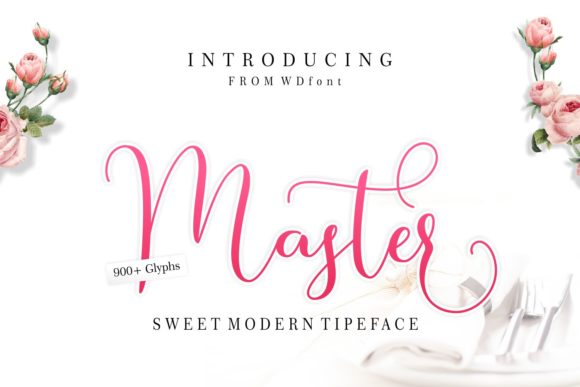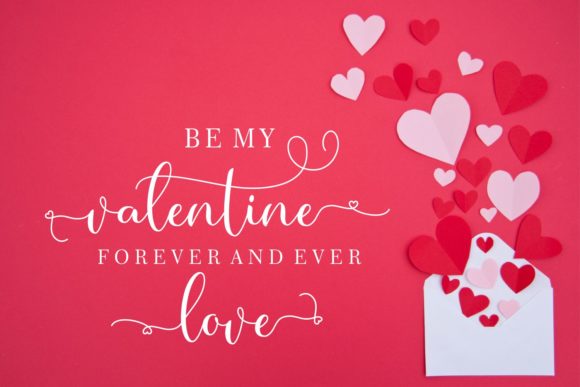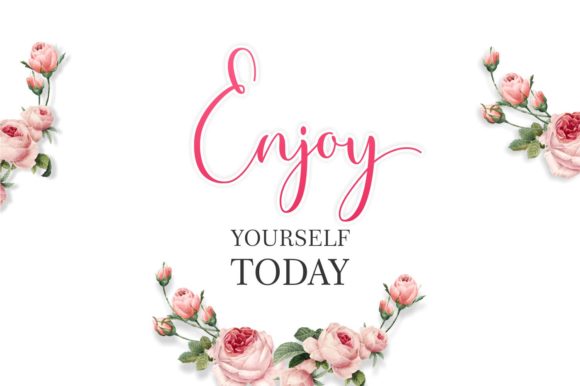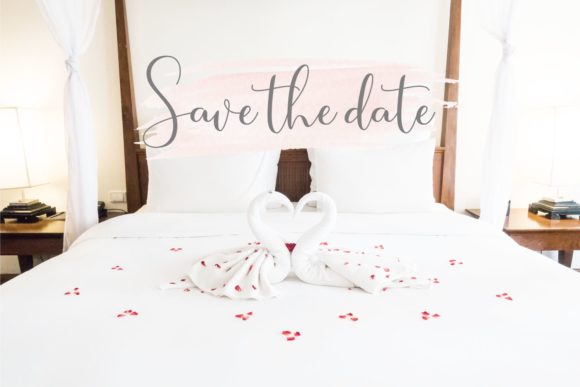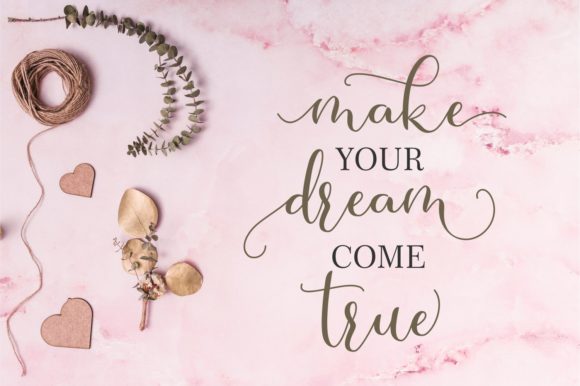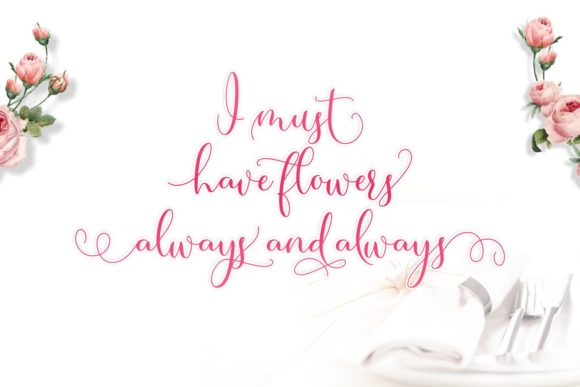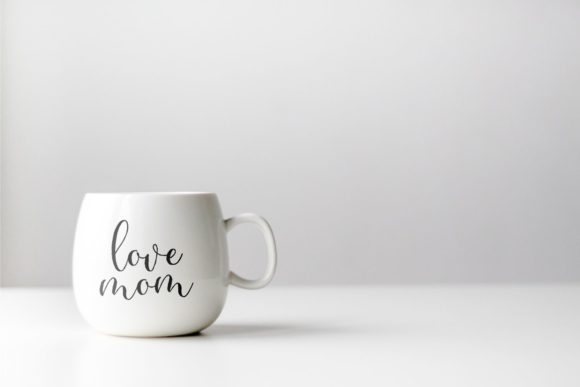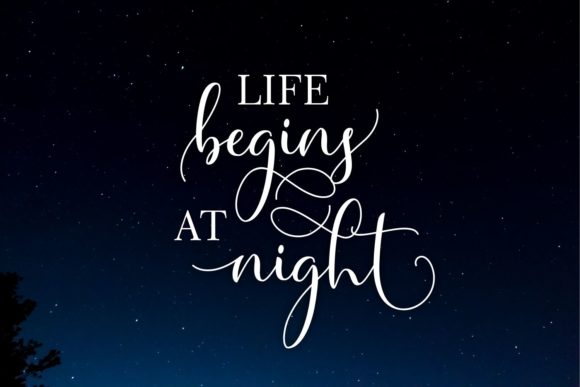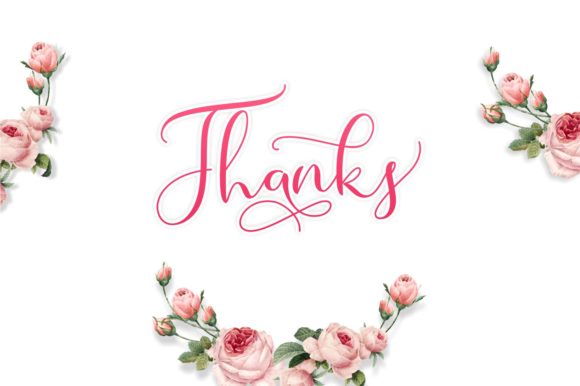
Master Script Font
About Master Script Font
The Master is a romantic font script which can be paired perfectly. It has a striking and elegant style, and is perfect for creating unique designs.